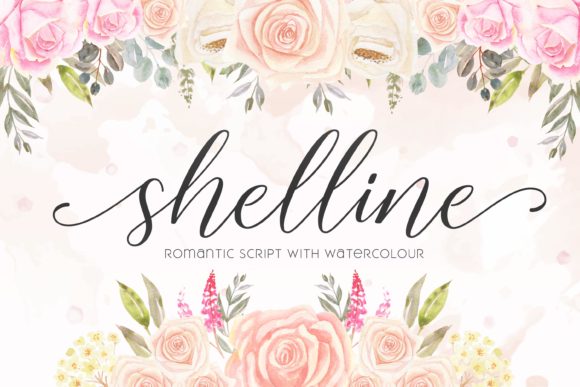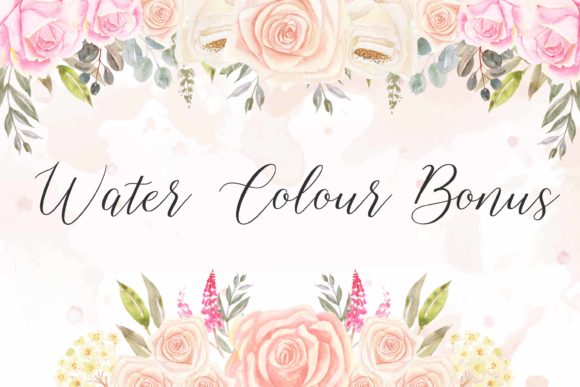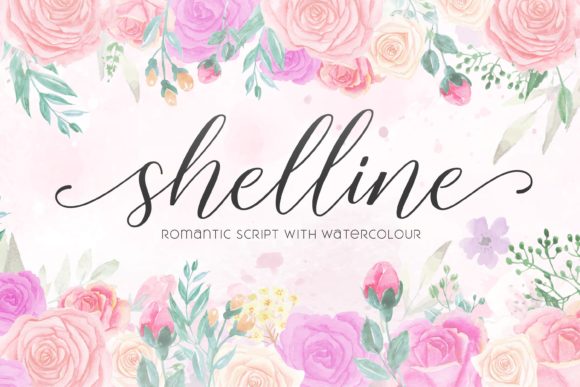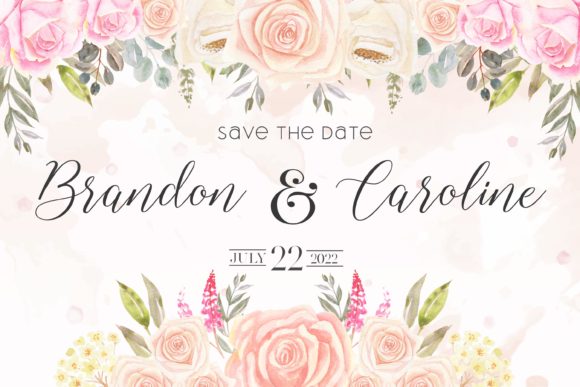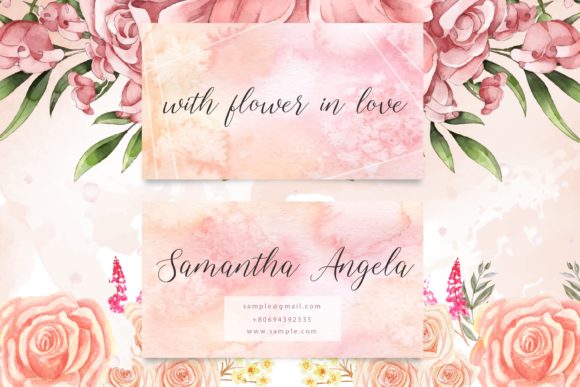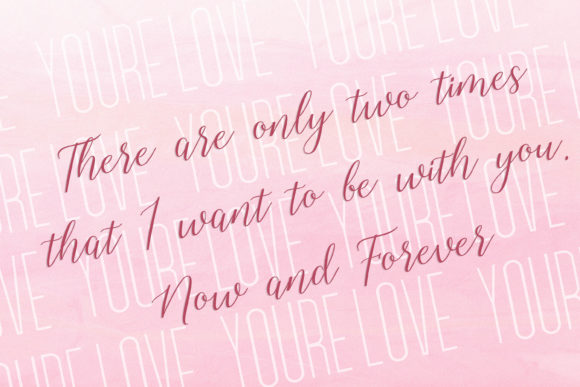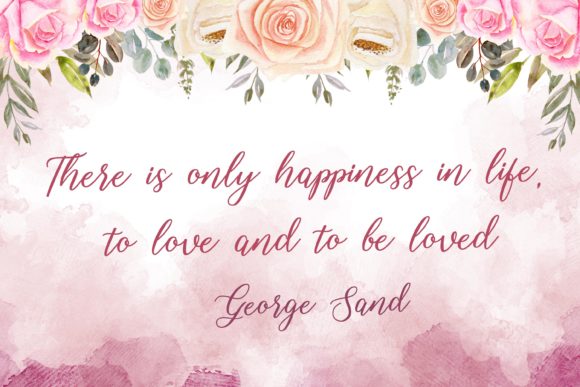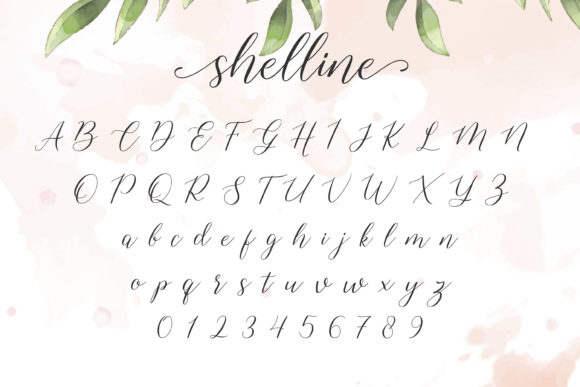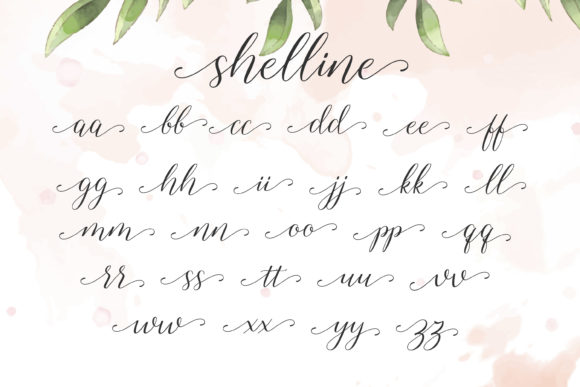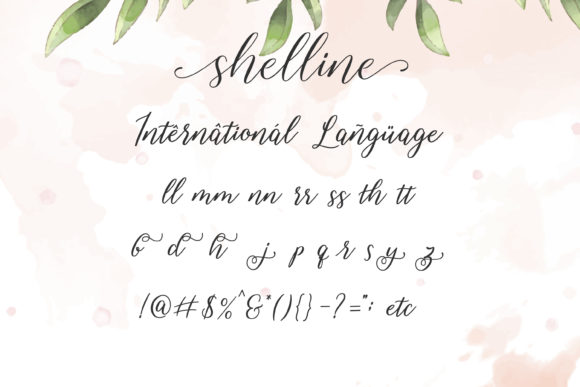
Shelline Font
About Shelline Font
Shelline is a stunningly beautiful and elegant handwritten font. Inspired by classic calligraphy, this unique font will turn any design project into a true standout!